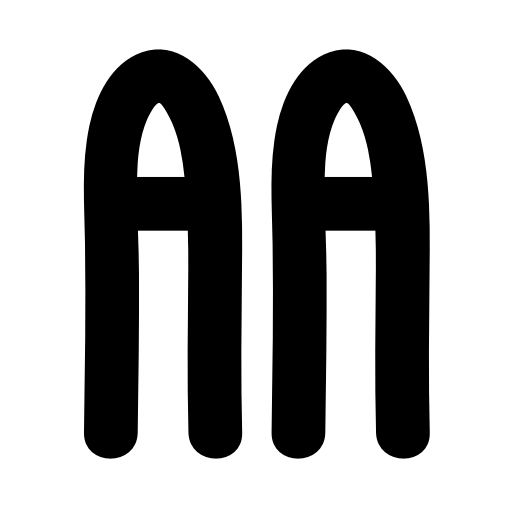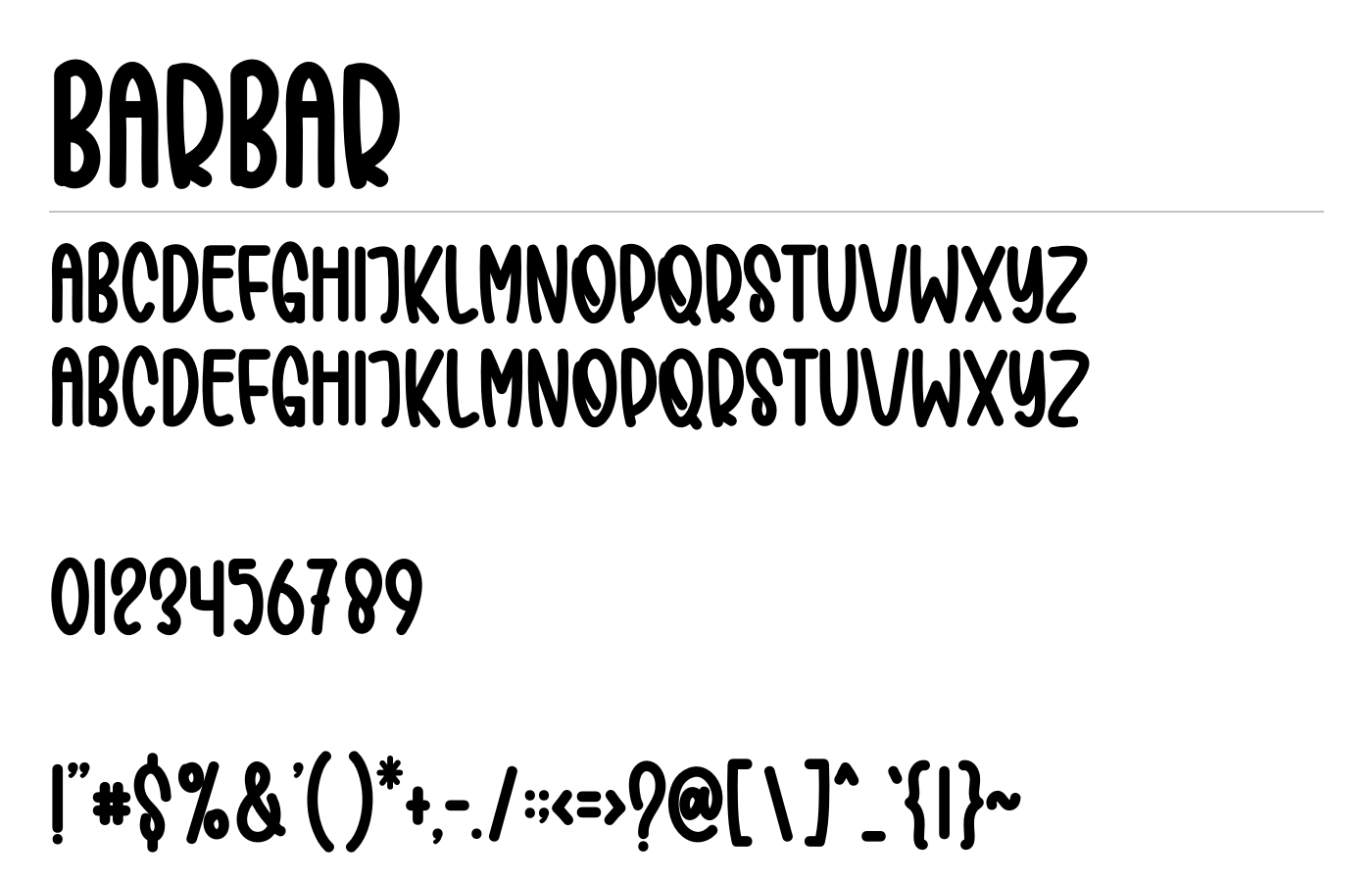
BARBAR is a playful and quirky sans serif font with tall, rounded letterforms that give it a friendly and approachable vibe. Its consistent weight and slightly condensed width make it ideal for eye-catching headlines and creative branding where a casual, fun personality is needed. This font works well in designs that want to convey warmth and originality, such as packaging, posters, or children’s content.
BARBAR Font